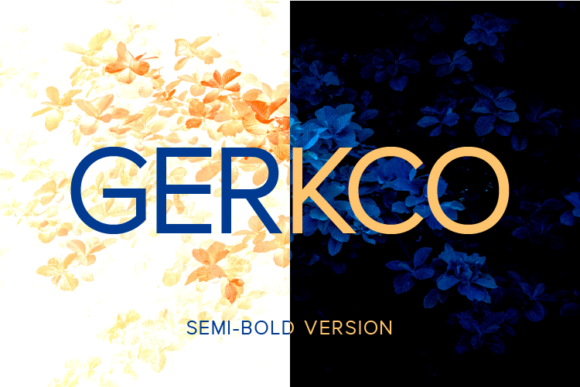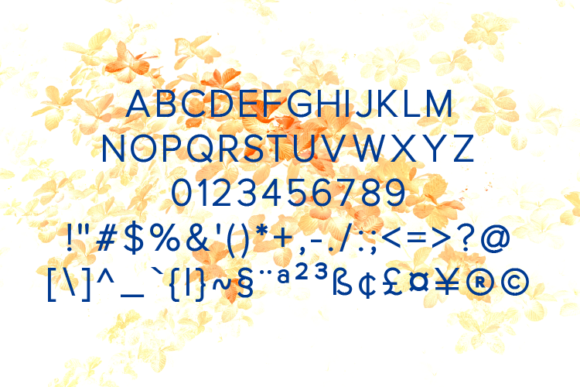
About Gerkco Semi-Bold Font
Gerkco Semi-Bold is a clean and elegant looking sans serif font. Get inspired by its modern feel and use it to create cool looking logos, eye-catching social media posts, unique book covers and much more.
Give your project a balanced and modern look with this tasteful font.